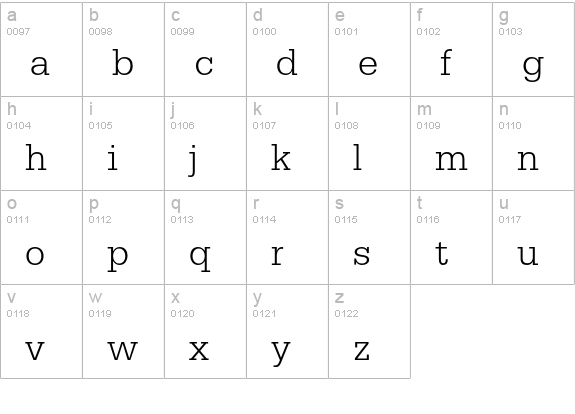
12 Serifa** 45 Light 02235 Font Details
12 Serifa** 45 Light 02235 is a refined, elegant variant in the 12 typeface family \xE2\x80\x94 well suited to elegant body text, refined sub-headings, and luxury branding.
The Serifa** 45 Light 02235 font is a stunning display of elegance and sophistication. With its clean lines and delicate curves, this font exudes a sense of refinement and grace. Perfect for both print and digital projects, it adds a touch of professionalism to any design. The 12 Serifa** 45 Light 02235 font effortlessly captures attention with its timeless beauty. Whether used for headlines, logos, or body text, it commands the reader's gaze with its subtle yet impactful presence. Its versatility allows it to be seamlessly incorporated into various design styles, from modern and minimalist to classic and ornate. One of the most appealing aspects of the Serifa** 45 Light 02235 font is that it is freely available for download at FontsMarket.com. This means that designers and creatives can access this remarkable font without any cost, making it an invaluable asset for individuals and businesses alike. The accessibility of this font ensures that everyone can add a touch of sophistication and professionalism to their projects, regardless of budget constraints. The Serifa** 45 Light 02235 font's free availability further demonstrates its commitment to empowering creativity and fostering inclusivity. By removing financial barriers, it enables designers from all walks of life to access high-quality typography that elevates their work to new heights. With its generous offering, FontsMarket.com allows users to explore the full potential of this extraordinary font, unlocking a world of endless design possibilities. In conclusion, the Serifa** 45 Light 02235 font is a masterpiece of design that effortlessly combines elegance and versatility. Its availability as a free download at FontsMarket.com ensures that it can be enjoyed by designers and creatives worldwide, regardless of their budget. Embrace the beauty and professionalism of this font and let your creativity soar to new heights.